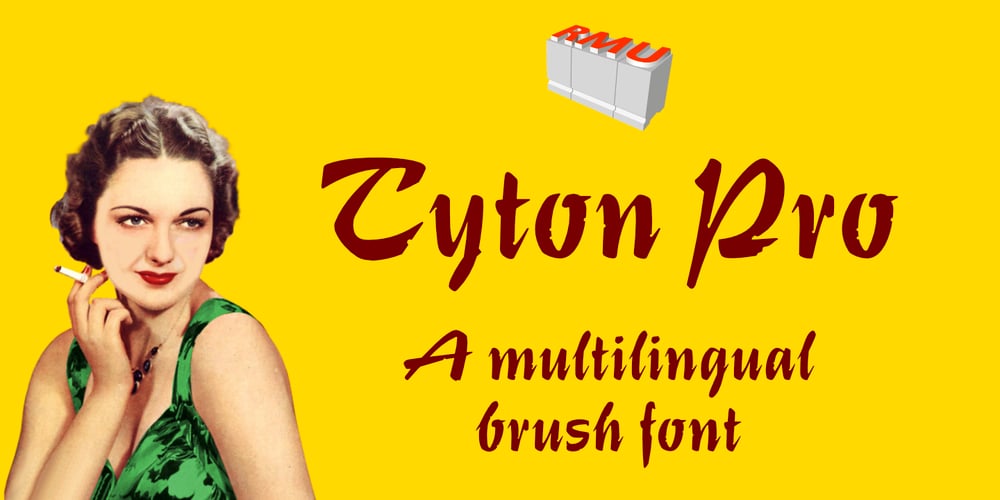
Tyton Pro Font Family was designed by Ralph M. Unger and published by RMU. Tyton Pro contains 1 styles and family package options. Based on Schumann’s original Typoart font ‘Stentor’, Tyton Pro has been carefully redrawn and redesigned. Unlike the simplified forms of former photo-setting versions, Tyton Pro preserves the tender upstrokes and downstrokes which underline the typical brush-written letters.